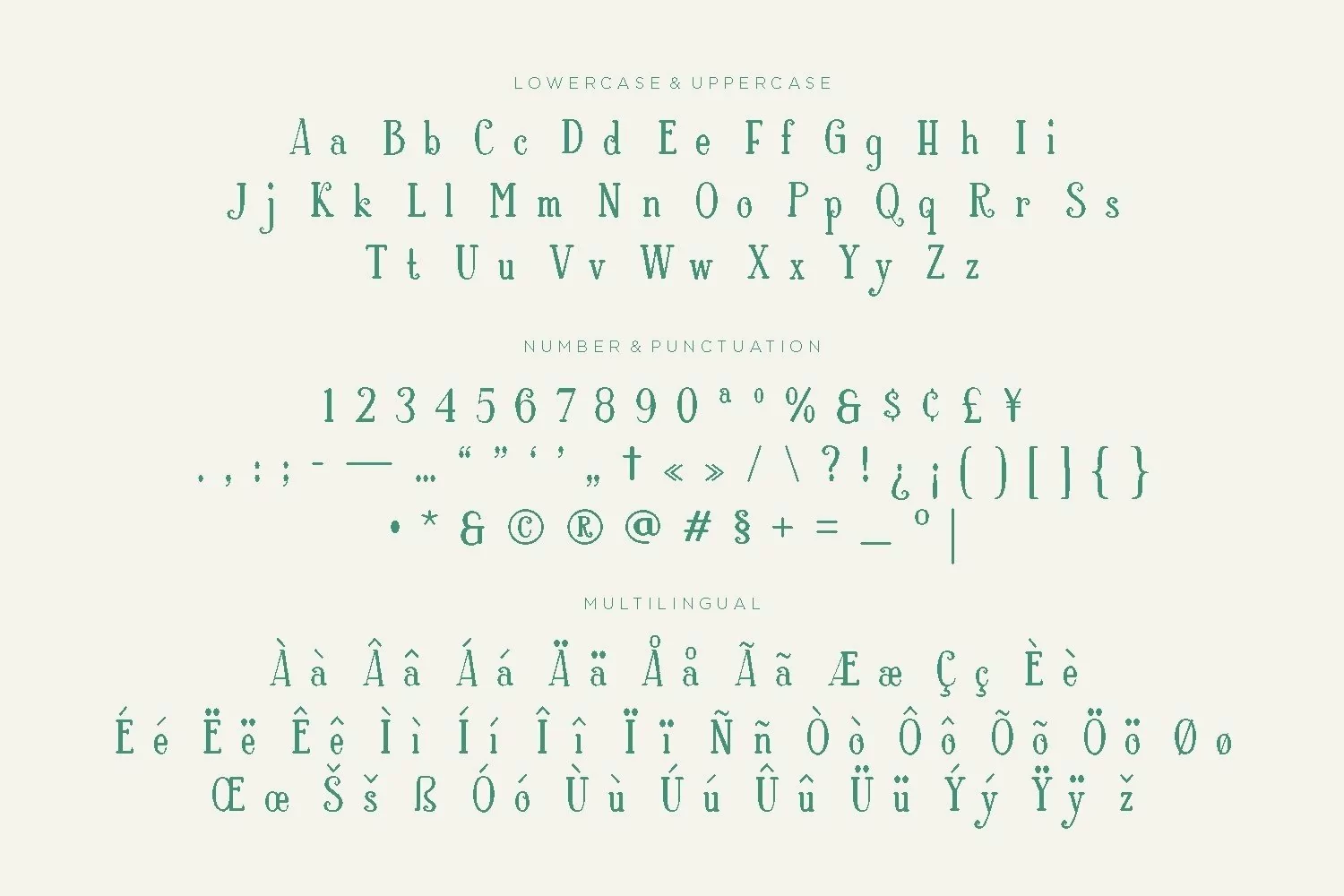
Rosalind is a beauty serif display come with cute themes. We wanted to create serif looks clean shape in all characters. It matches applies in some designs such as the logotype, brand, packaging, quotes, cute poster, beauty shirt, cover book, birthday invitation and more custom design. The features uppercase, lowercase, numeral, punctuation & symbol, multilingual support, PUA encoded (fully accessible without additional design software).